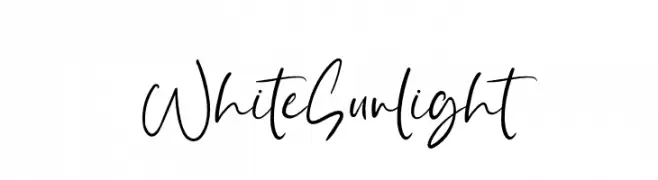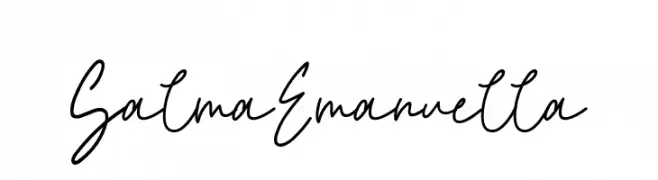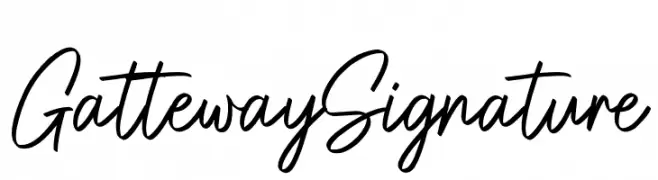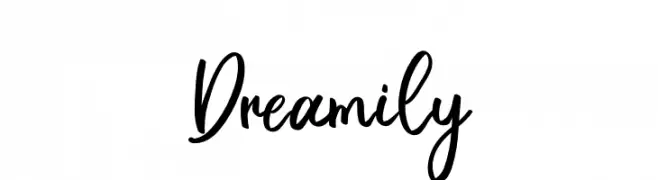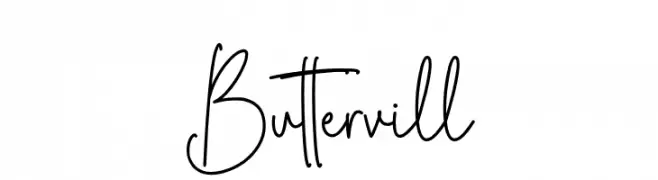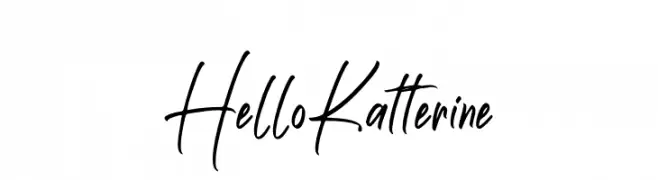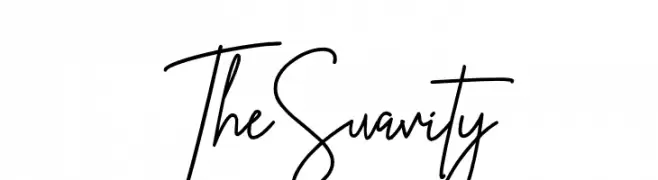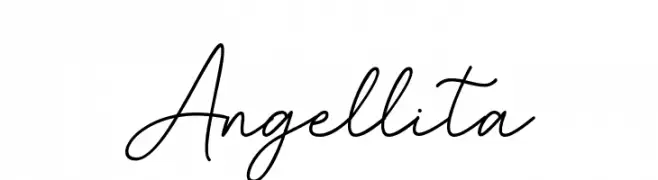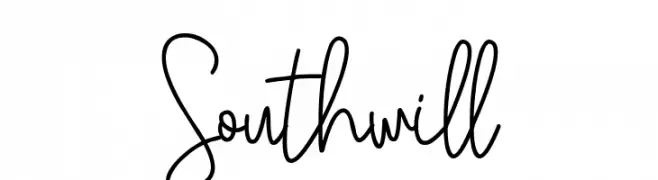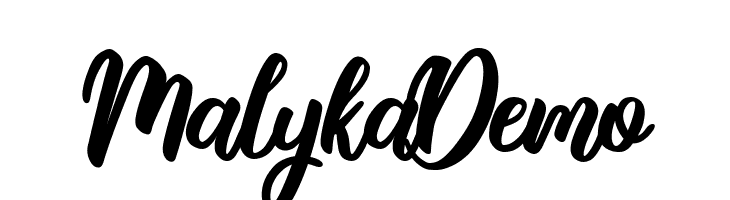
A lively handwritten font with fluid, expressive strokes.
A casual, handwritten cursive font with elegant, flowing connections.
A stylish, elegant handwritten script with fluid, connected letterforms.
A playful and whimsical cursive font with bold, flowing letters.
A playful, elegant handwritten script with thin, flowing strokes.
A fluid and elegant handwritten font with a dynamic and artistic style.
A fluid, handwritten-style font with a casual elegance.
An elegant, flowing script font with a natural handwritten style.
A playful, handwritten font with a whimsical and casual style.
A playful, rounded font with bold strokes and a casual vibe.